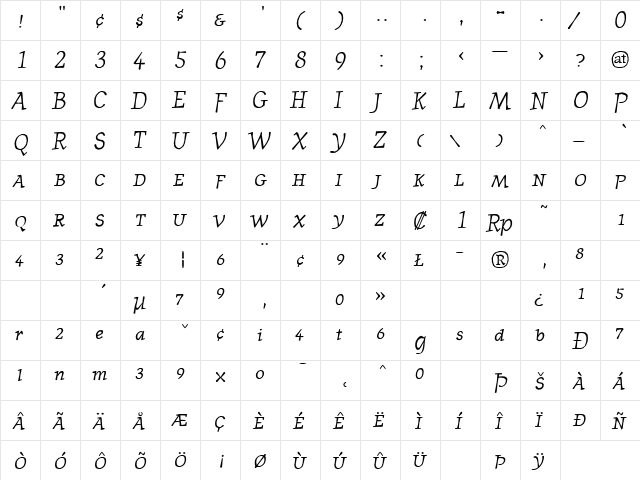
JournalItalicSmallcaps Italic
Design Context for JournalItalicSmallcaps Typeface
JournalItalicSmallcaps takes a measured approach to typography — its balanced proportions and neutral character make it a reliable workhorse for both digital and print work. The dynamic lean of this cut emphasises speed and emphasis in any layout.
Pro Tip: Use JournalItalicSmallcaps for emphasis, pull quotes, and subheadings where its slanted energy can add rhythm to the layout.